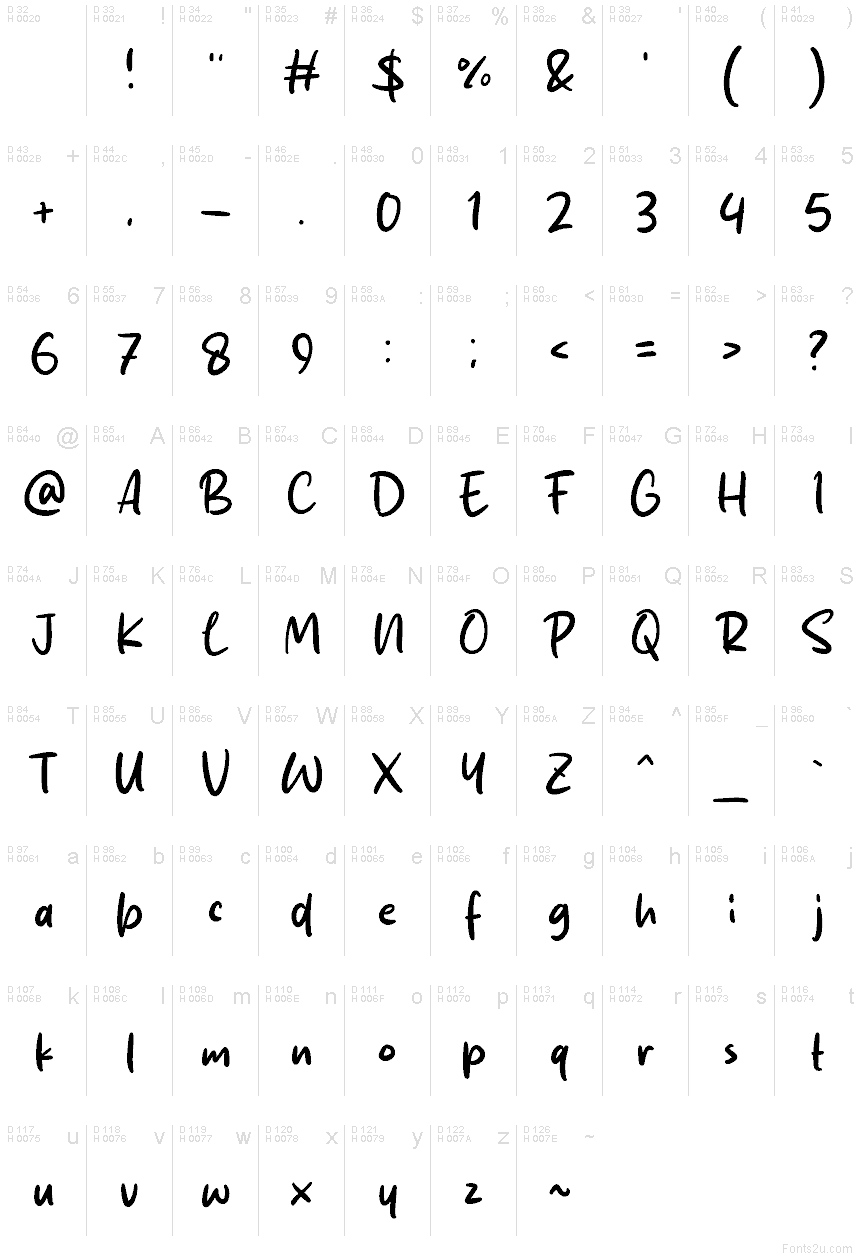
Morning Routine
Morning Routine font by MJType is a friendly display free font featuring a brush handwriting aesthetic. With expressive letterforms, this typeface delivers a casual and informal feel which is perfect for use in creative projects that want to communicate modernity with an artistic appeal. It is suitable especially for decorative purposes and short texts since it lacks legibility in longer texts.
This handwritten font is free, so enjoy using it in invitations, logos, social media content, packages, greeting cards, product design/packaging, and restaurant/pub identities. Other ideas include headlines/titles on posters and magazines as well as wall art/self-love quotes.